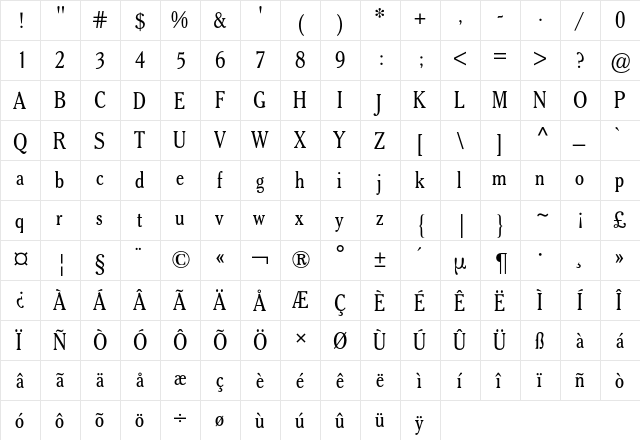
Cheltenham ATF Old Style BQ Regular Font Preview
Cheltenham ATF Old Style BQ Regular
Design Context for Cheltenham ATF Old Style BQ Typeface
Cheltenham ATF Old Style BQ offers clean, dependable letterforms without strong stylistic allegiance, making it a practical choice for designers who need flexibility.
Pro Tip: Use Cheltenham ATF Old Style BQ in both headline and body roles to test its range before committing to a single application.